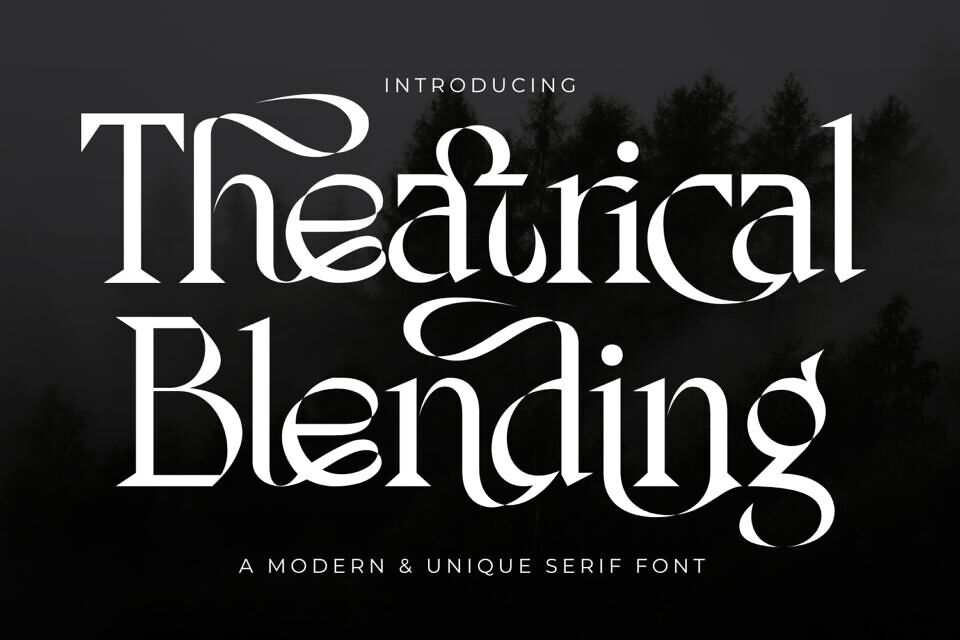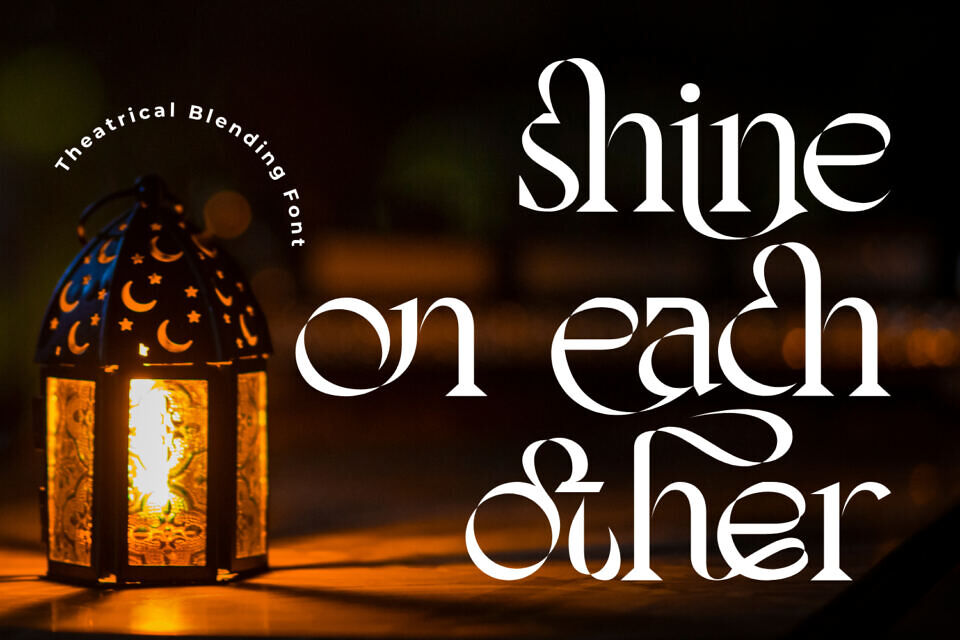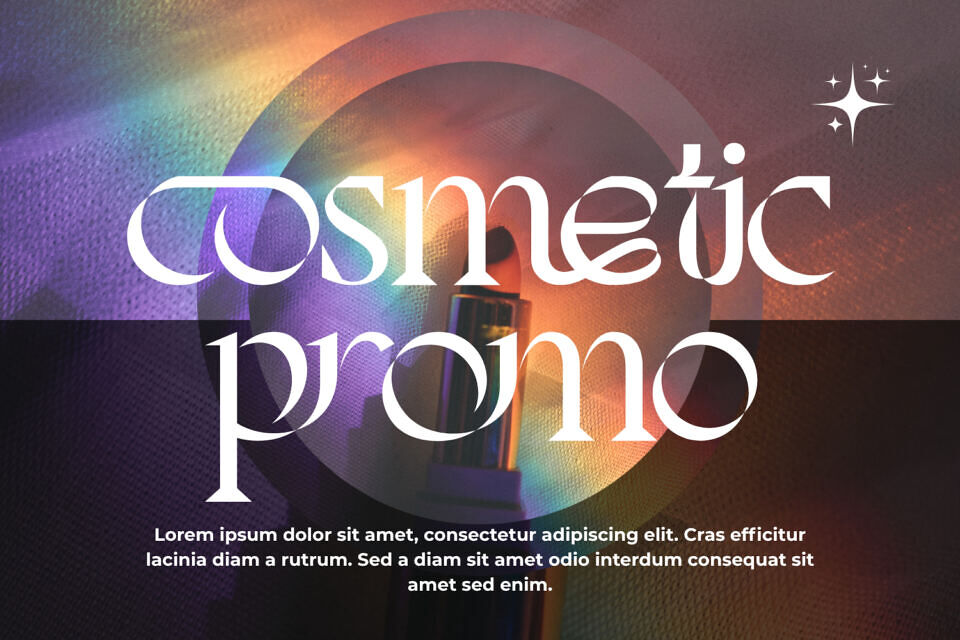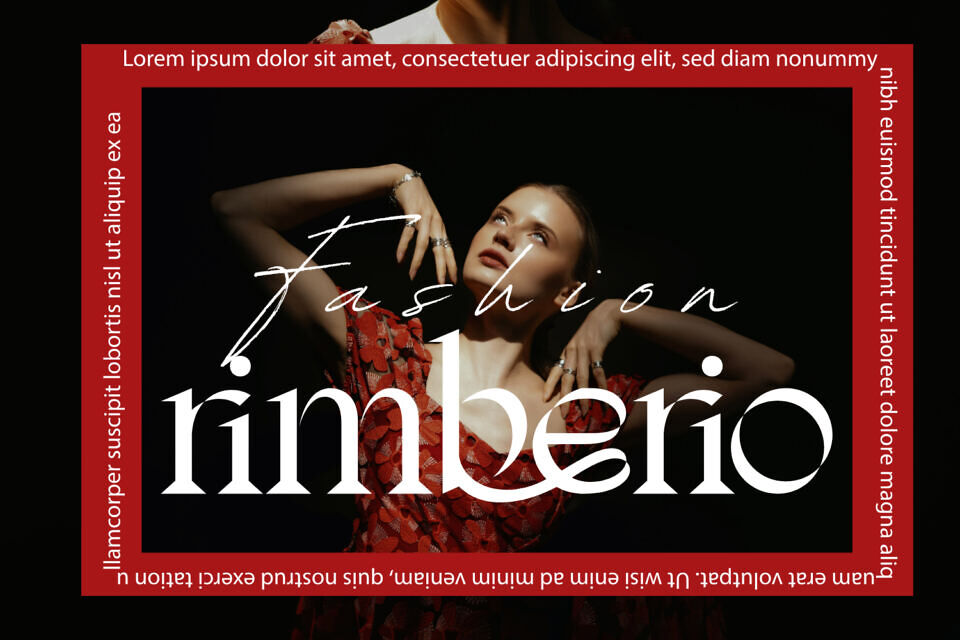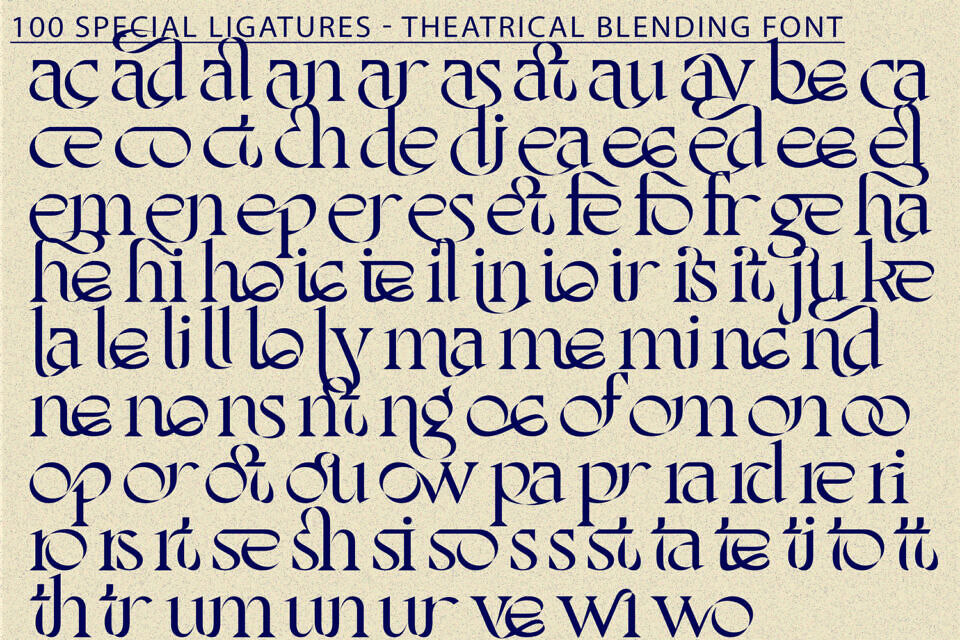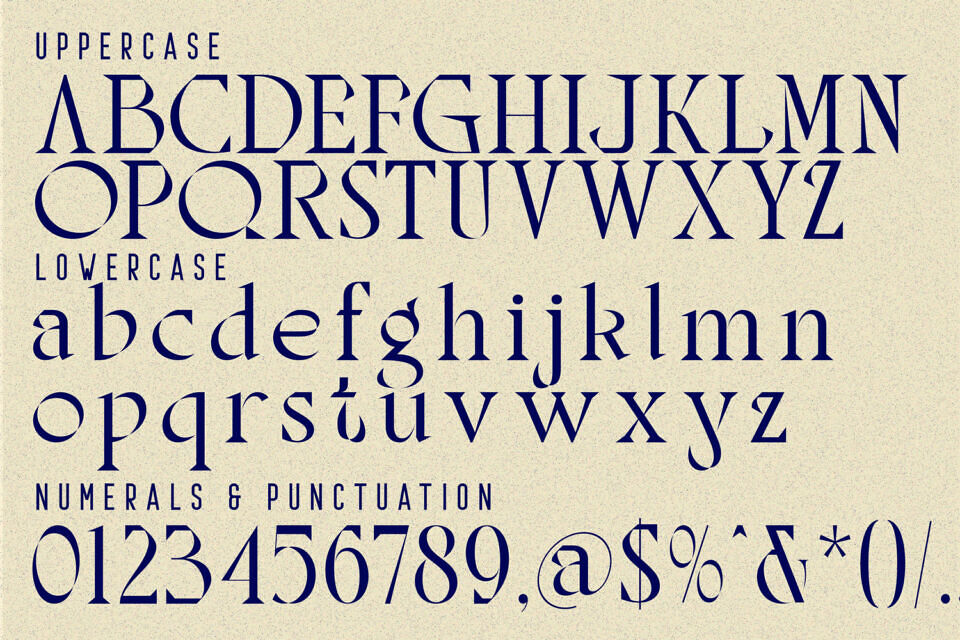
Theatrical Blending Font
Theatrical Blending is an Elegant Modern Serif Display Font crafted with striking contrast, refined curves, and dramatic ornamental swashes. Each character blends sharp serif precision with smooth flowing movements, creating a sophisticated and theatrical visual rhythm.
The font features sculpted letterforms with sweeping tails, looped terminals, and expressive stylistic curves that bring a luxurious, artistic flair to any layout. Theatrical Blending is designed to evoke elegance and emotion—perfect for editorial titles, luxury branding, fashion campaigns, wedding invitations, packaging, posters, and any project that demands a refined yet distinctive typographic presence.